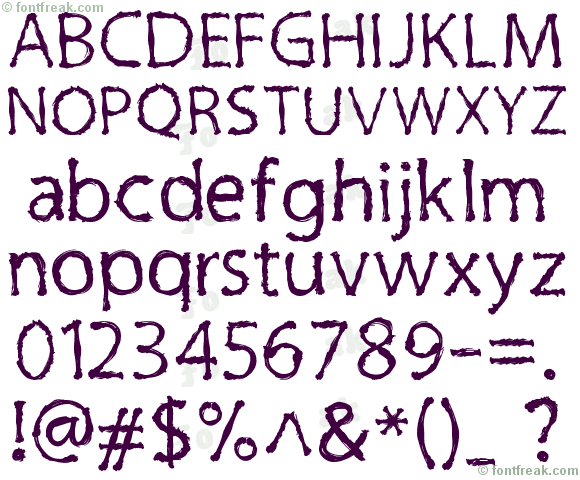
Inky_Cre
Inky_Cre by FRED CRE is a captivating display font that brings a unique flair to various design projects. This font falls into the decorative category, characterized by its playful and artistic style. The Inky_Cre font features a handwritten look, with stroke weights that vary to create an organic, spontaneous feel. Its uneven edges and slightly irregular spacing lend it an authentic, hand-crafted quality that is both inviting and eye-catching.
The visual characteristics of Inky_Cre include a whimsical appearance with a playful touch, making it perfect for creative applications. The font’s strokes exhibit a deliberate roughness, emulating the look of ink splashes or brush strokes, which adds to its charm. This makes it an excellent choice for projects that seek to convey a sense of creativity and individuality.
Inky_Cre is particularly well-suited for use in wedding invitations, where its distinctive style can add a personal touch. It also works wonderfully for movie posters, where it can convey the mood and tone of the film effectively. Additionally, restaurant menus can benefit from its artistic flair, helping to create an inviting atmosphere. Content creators looking for unique social media graphics will find Inky_Cre to be an engaging choice that stands out in crowded feeds.
In conclusion, Inky_Cre stands out due to its artistic essence and versatility, making it an essential addition to any designer's toolkit. With the Inky_Cre font free download, you can elevate your projects with a unique typographic style that speaks to creativity and individuality.